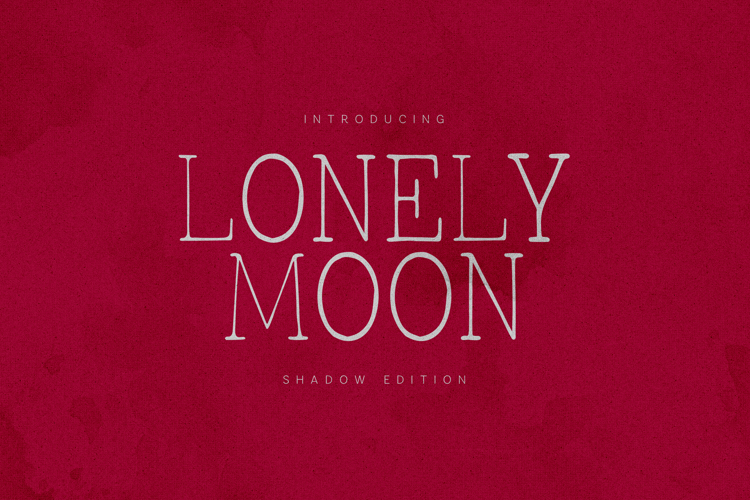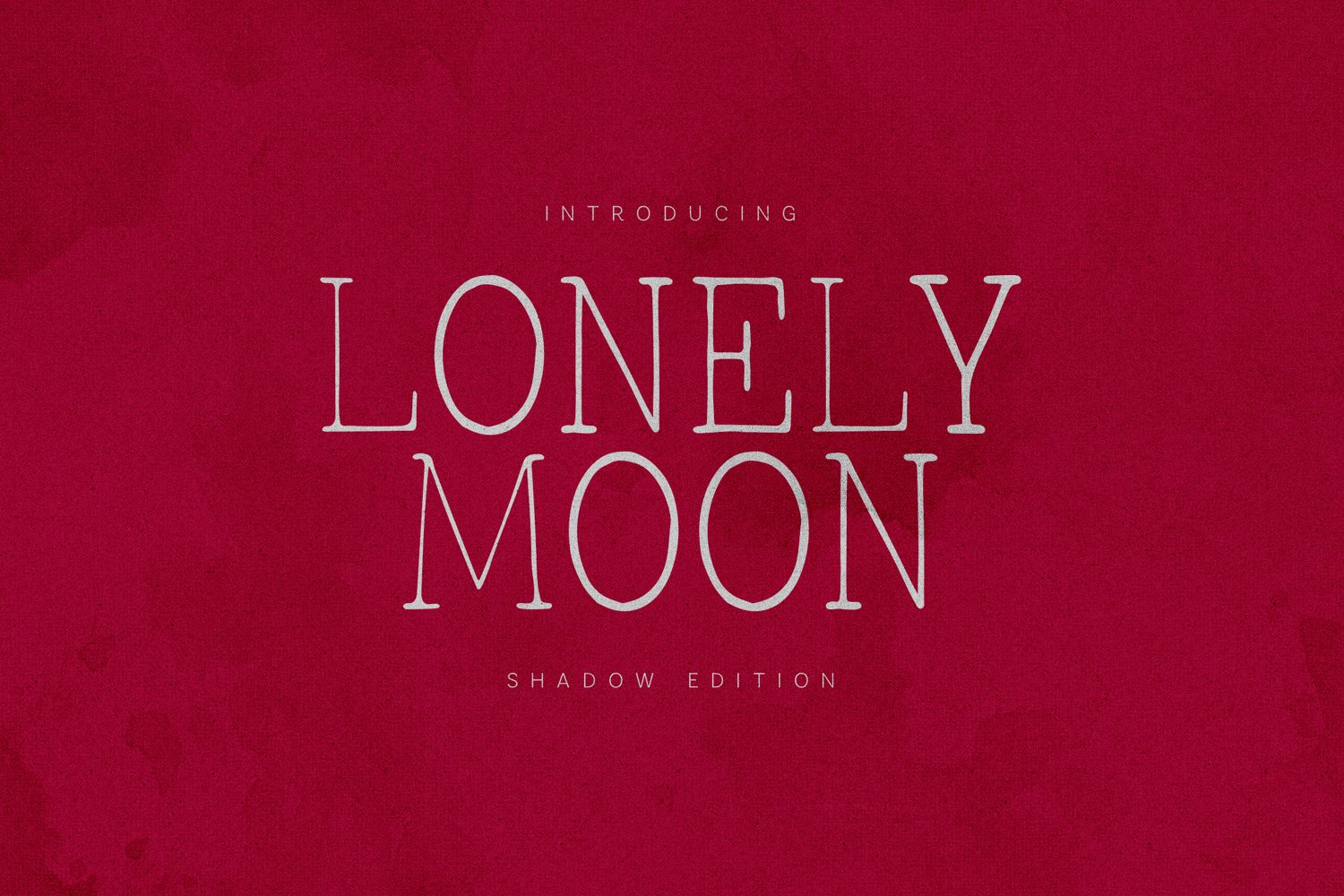
Lonely Moon Elegant Serif Font
Lonely Moon is an elegant serif font designed with emotion, delicacy, and timeless beauty in mind. Featuring refined proportions, gentle curves, and subtle contrast, this typeface delivers a poetic and expressive voice that feels intimate yet sophisticated.
Perfect for editorial design, book covers, poetry layouts, luxury branding, posters, invitations, album artwork, and cinematic visuals, Lonely Moon shines in designs that require atmosphere and storytelling. Its graceful letterforms make it especially effective for headlines and short passages where mood and elegance matter most.
This Shadow Edition enhances the font’s depth and visual presence, adding character while maintaining clarity and balance.
Lonely Moon includes a complete character set with uppercase and lowercase letters, numerals, punctuation, symbols, and extensive multilingual support, making it suitable for international projects.
If you’re looking for a serif font that feels emotional, artistic, and quietly powerful, Lonely Moon brings refined elegance to your typography.